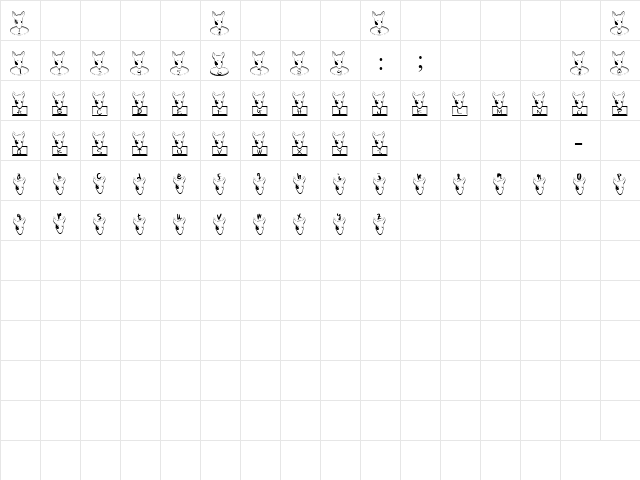
blair Font Regular
Design Context for blair Font Typeface
blair Font is a composed and adaptable typeface that performs quietly and consistently across a wide range of design contexts.